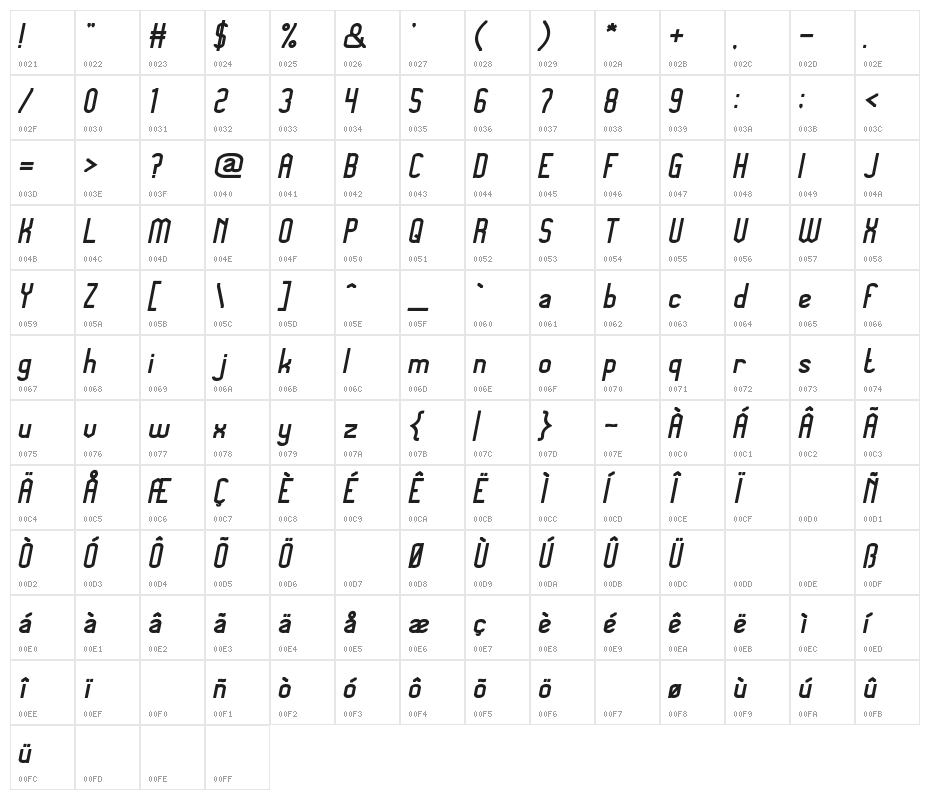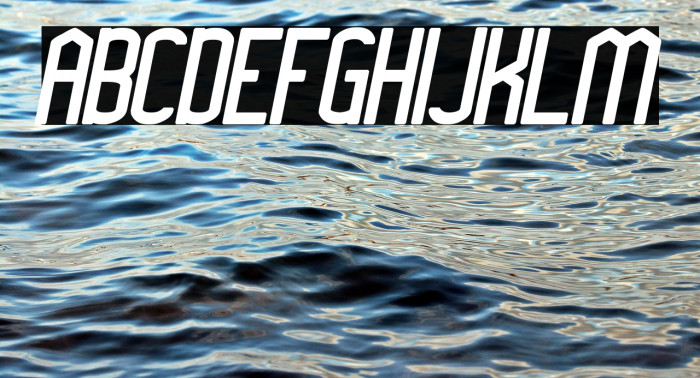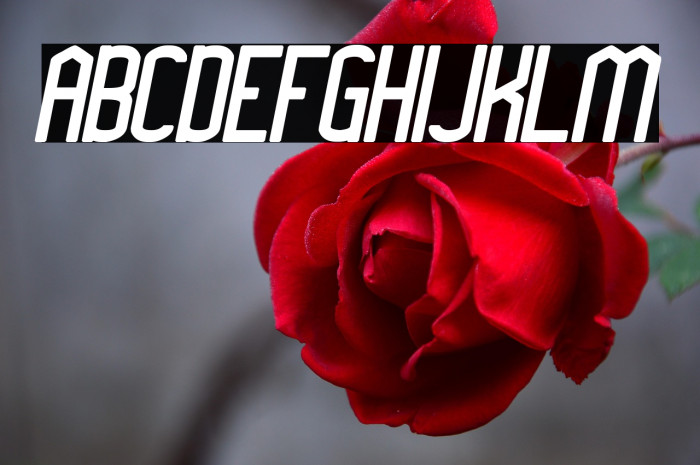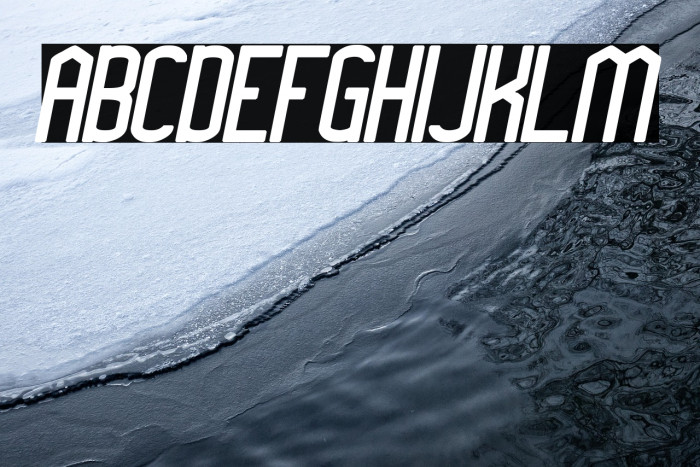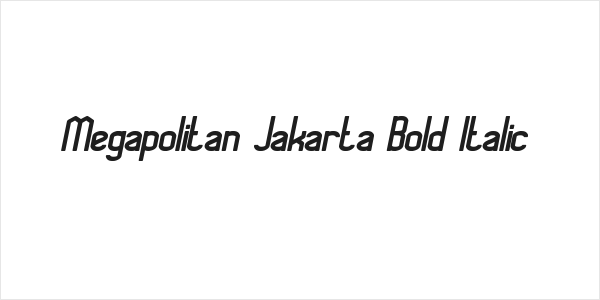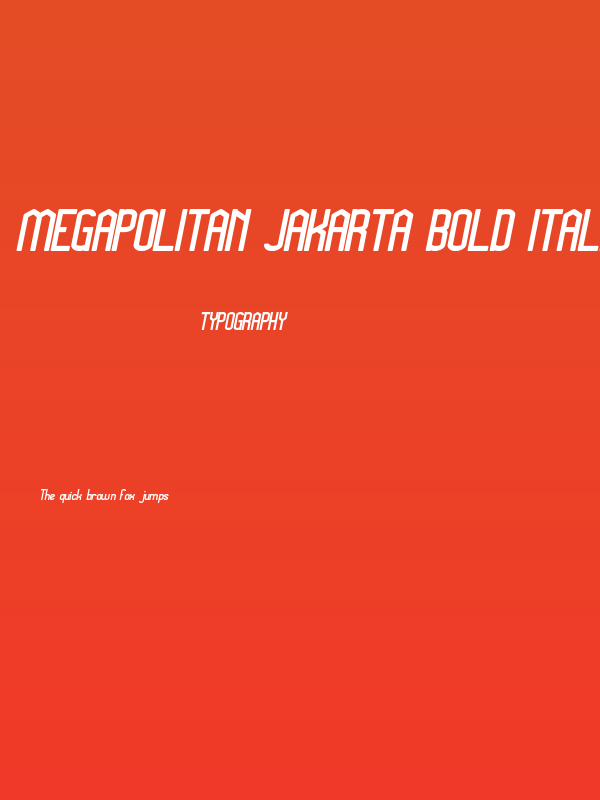
Megapolitan Jakarta Bold Italic Font
Megapolitan Jakarta Bold Italic Description
This font features a bold and italicized style with a modern and dynamic appearance. The characters are slightly slanted, giving a sense of movement and energy. The strokes are thick and consistent, providing a strong visual impact. The uppercase letters are angular and geometric, while the lowercase letters maintain a similar style with a slightly softer edge. The numerals are clear and bold, matching the overall aesthetic. Special characters are well-defined, maintaining the font's cohesive look. This font is ideal for projects that require a bold and contemporary feel.
| Proposed Projects | Ideal for branding, headlines, posters, and modern design projects. |